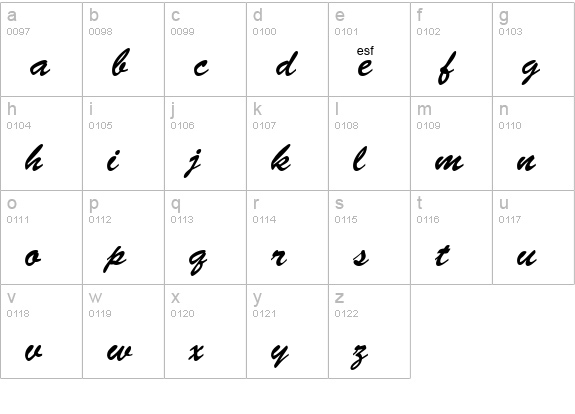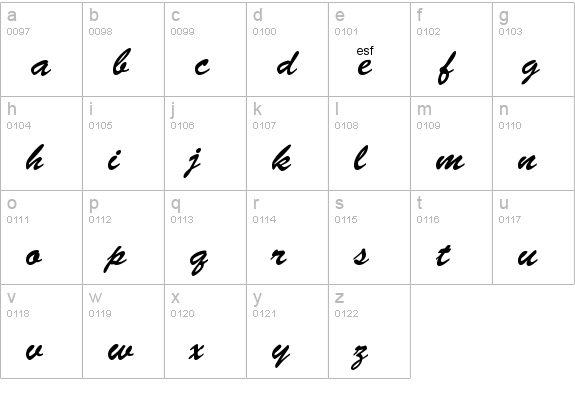
Introducing Brush font, a unique and stylish typeface that exudes creativity and individuality. This font features hand-drawn brush strokes that create a bold and dynamic appearance, perfect for adding a touch of personality to your designs. Whether you're working on posters, invitations, branding materials, or social media graphics, Brush font will make your text stand out with its artistic flair. The best part? Brush font is completely free to download at FontsMarket.com! You can easily access this eye-catching typeface and use it in all your projects without any cost. Don't miss out on the opportunity to enhance your designs with the expressive and energetic vibe of Brush font. Download it today and let your creativity flow!